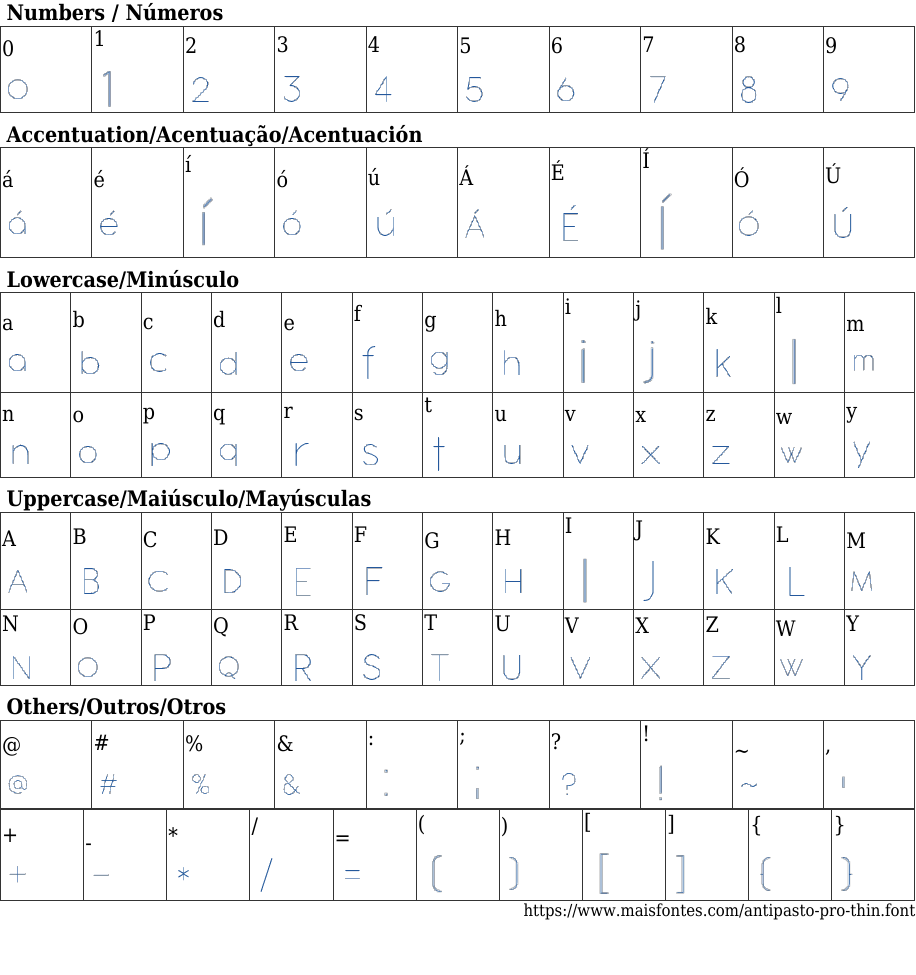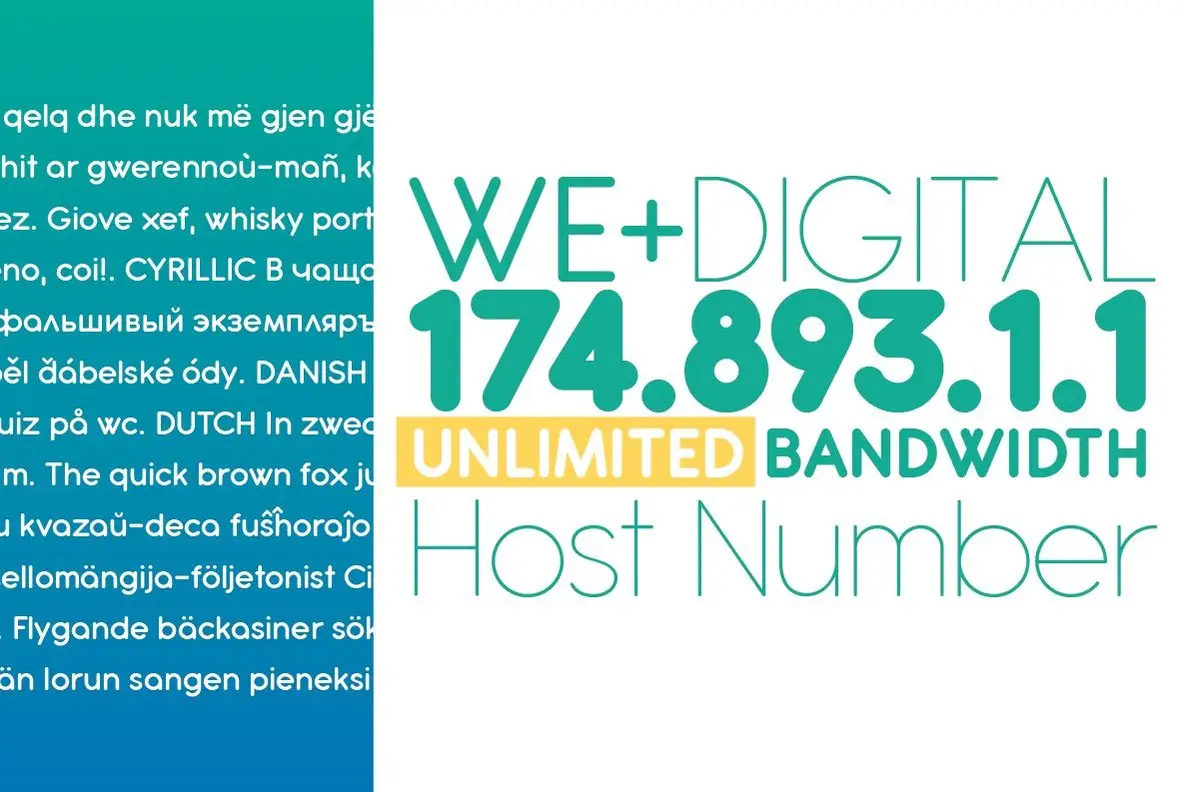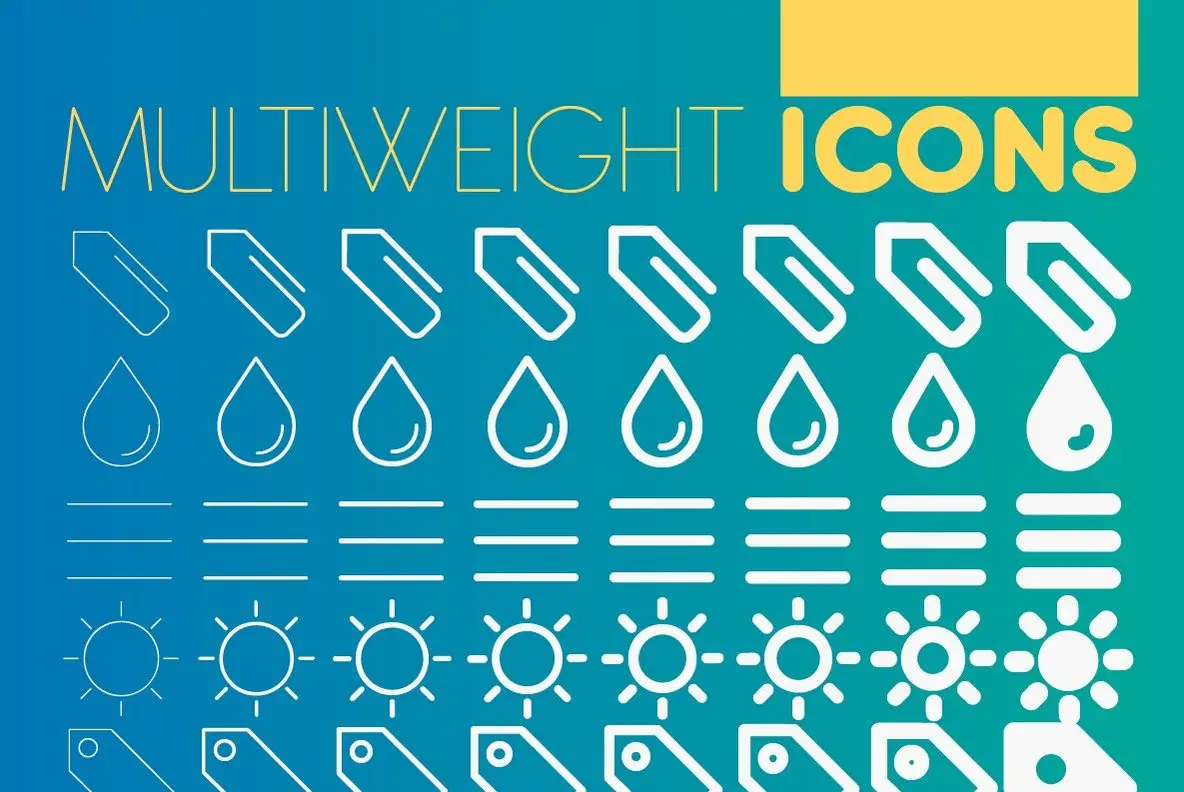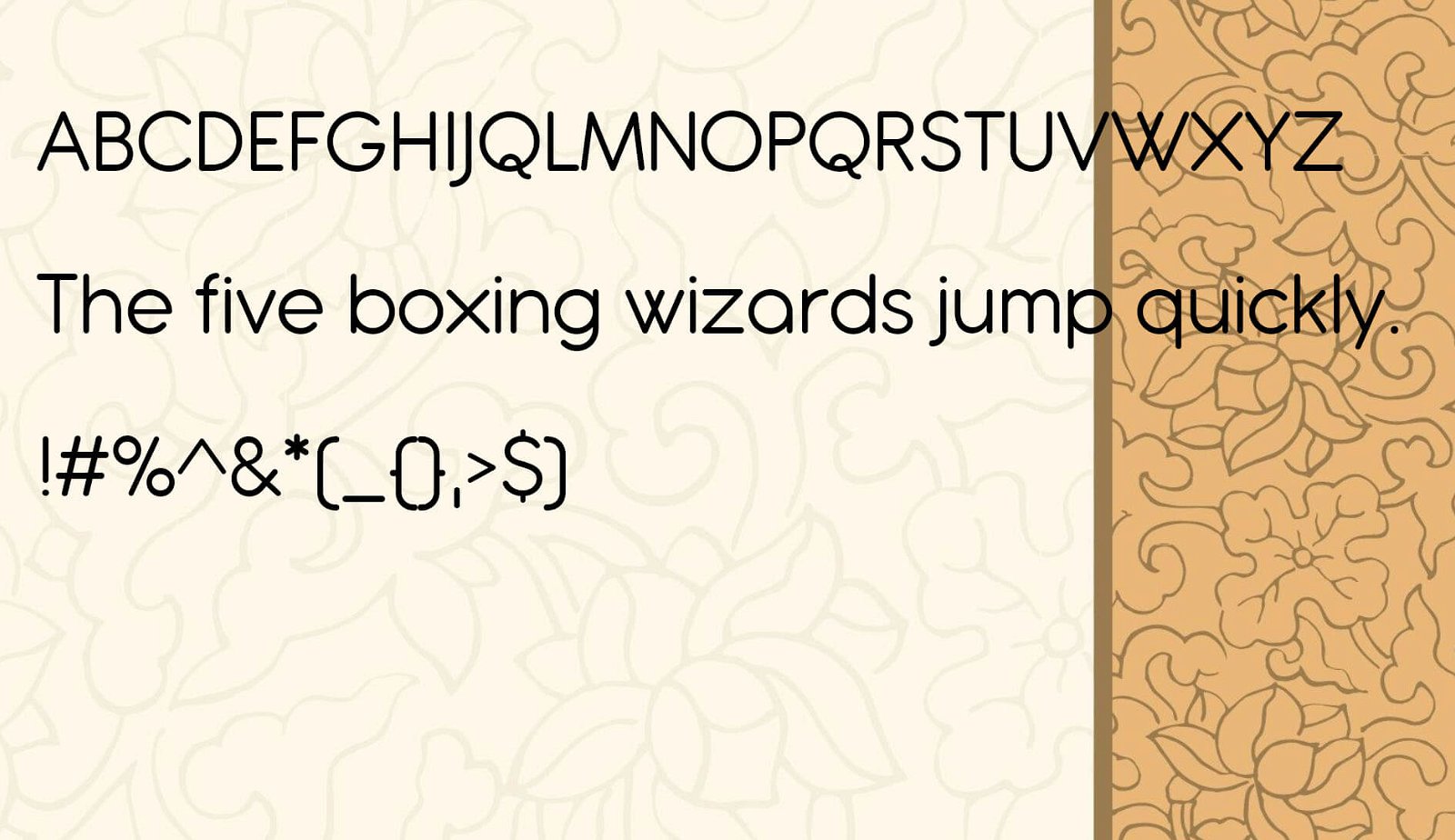
Antipasto Pro Thin Font . Join the exclusive type club to get free fonts and special offers on new releases! Antipasto is a geometric sans serif font designed by cosimo lorenzo pancini. Be aware that the antipasto pro thin font is free for personal knowledge and use only. Antipasto is a geometric sans serif font designed by cosimo lorenzo pancini. The original family of three weights has been revised and expanded in 2017 with. Antipasto pro is a sans serif type font that can be used. The original family of three weights has been revised and expanded in 2017 with. However, you need to contact the author. Antipasto pro is a free font for personal use created by zetafonts. ️ customize your own preview on ffonts.net to. Antipasto pro font download is available free from fontget. The antipasto pro thin font contains 727 beautifully designed characters. Download antipasto pro font family · free for personal use · this trial font is totally free for noncommercial uses.
Join the exclusive type club to get free fonts and special offers on new releases! The original family of three weights has been revised and expanded in 2017 with. The original family of three weights has been revised and expanded in 2017 with. Antipasto pro font download is available free from fontget. Antipasto is a geometric sans serif font designed by cosimo lorenzo pancini. Antipasto is a geometric sans serif font designed by cosimo lorenzo pancini. However, you need to contact the author. Antipasto pro is a sans serif type font that can be used. ️ customize your own preview on ffonts.net to. Be aware that the antipasto pro thin font is free for personal knowledge and use only.
Antipasto Pro Thin Font Be aware that the antipasto pro thin font is free for personal knowledge and use only. The antipasto pro thin font contains 727 beautifully designed characters. Antipasto pro is a free font for personal use created by zetafonts. However, you need to contact the author. Antipasto is a geometric sans serif font designed by cosimo lorenzo pancini. Antipasto pro font download is available free from fontget. Download antipasto pro font family · free for personal use · this trial font is totally free for noncommercial uses. Be aware that the antipasto pro thin font is free for personal knowledge and use only. The original family of three weights has been revised and expanded in 2017 with. Join the exclusive type club to get free fonts and special offers on new releases! ️ customize your own preview on ffonts.net to. Antipasto is a geometric sans serif font designed by cosimo lorenzo pancini. The original family of three weights has been revised and expanded in 2017 with. Antipasto pro is a sans serif type font that can be used.
Antipasto Pro Font Free Download Antipasto Pro Thin Font Antipasto pro is a free font for personal use created by zetafonts. Be aware that the antipasto pro thin font is free for personal knowledge and use only. Antipasto is a geometric sans serif font designed by cosimo lorenzo pancini. The original family of three weights has been revised and expanded in 2017 with. Antipasto pro is a sans serif. Antipasto Pro Thin Font.
Antipasto Pro Thin Free Font Download MaisFontes Antipasto Pro Thin Font ️ customize your own preview on ffonts.net to. Antipasto pro is a free font for personal use created by zetafonts. Antipasto is a geometric sans serif font designed by cosimo lorenzo pancini. The antipasto pro thin font contains 727 beautifully designed characters. The original family of three weights has been revised and expanded in 2017 with. Antipasto is a geometric. Antipasto Pro Thin Font.
Antipasto free font Antipasto Pro Thin Font Antipasto pro is a free font for personal use created by zetafonts. Antipasto pro is a sans serif type font that can be used. Antipasto is a geometric sans serif font designed by cosimo lorenzo pancini. Be aware that the antipasto pro thin font is free for personal knowledge and use only. The original family of three weights has been. Antipasto Pro Thin Font.
Antipasto Pro Thin 1.000 Fonts Free Download Antipasto Pro Thin Font The original family of three weights has been revised and expanded in 2017 with. Be aware that the antipasto pro thin font is free for personal knowledge and use only. Antipasto pro is a free font for personal use created by zetafonts. However, you need to contact the author. Antipasto is a geometric sans serif font designed by cosimo lorenzo. Antipasto Pro Thin Font.
Antipasto Pro Font Free Download Antipasto Pro Thin Font The original family of three weights has been revised and expanded in 2017 with. Antipasto is a geometric sans serif font designed by cosimo lorenzo pancini. The original family of three weights has been revised and expanded in 2017 with. Antipasto pro font download is available free from fontget. The antipasto pro thin font contains 727 beautifully designed characters. Join. Antipasto Pro Thin Font.
Antipasto Pro font Antipasto Pro Thin Font The antipasto pro thin font contains 727 beautifully designed characters. Antipasto pro is a free font for personal use created by zetafonts. The original family of three weights has been revised and expanded in 2017 with. ️ customize your own preview on ffonts.net to. Antipasto pro font download is available free from fontget. The original family of three weights has. Antipasto Pro Thin Font.